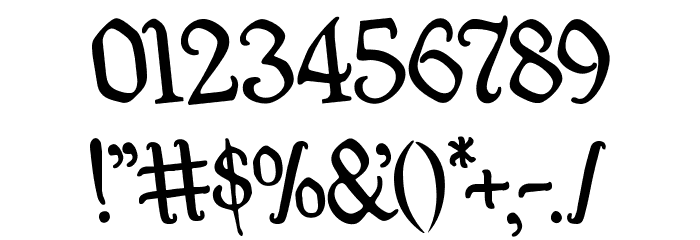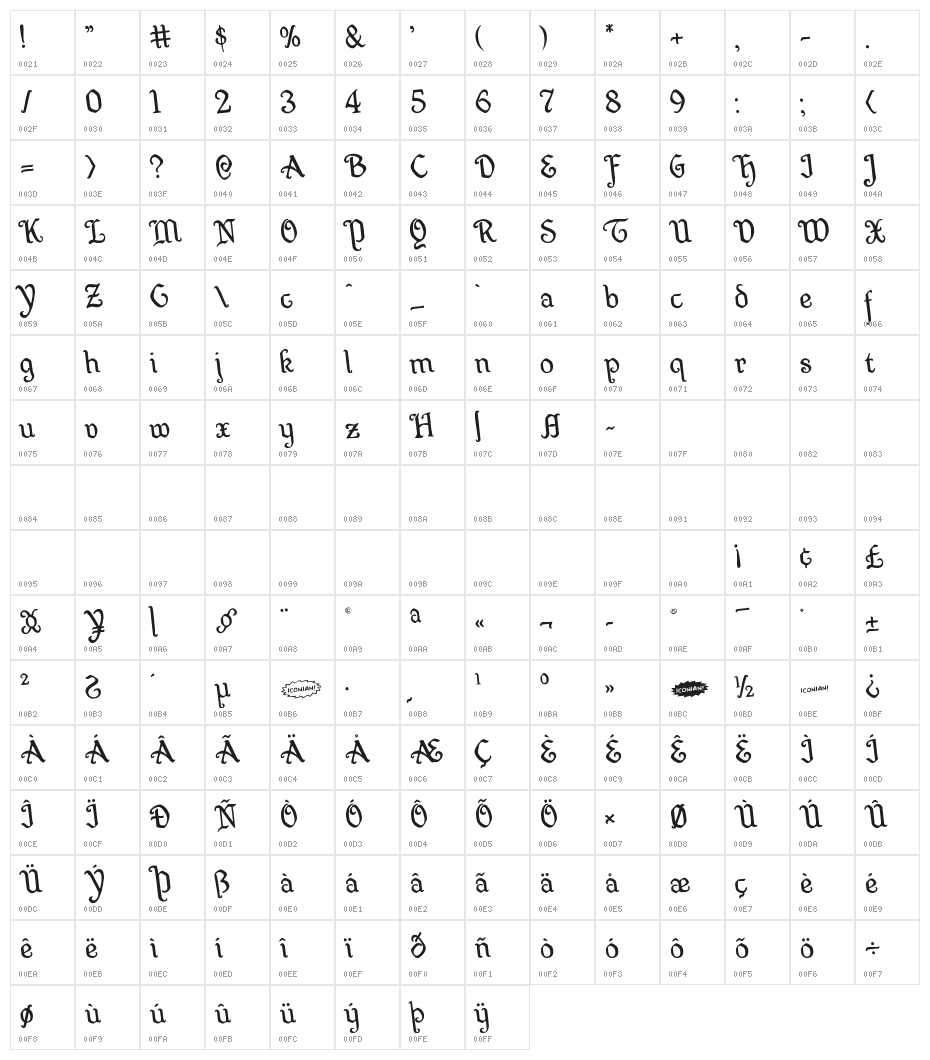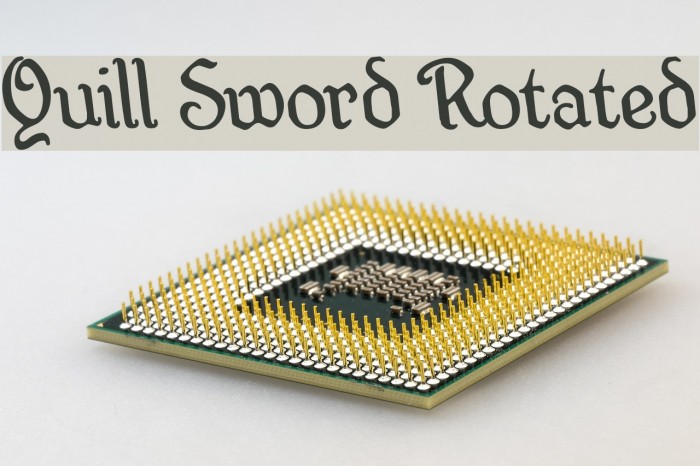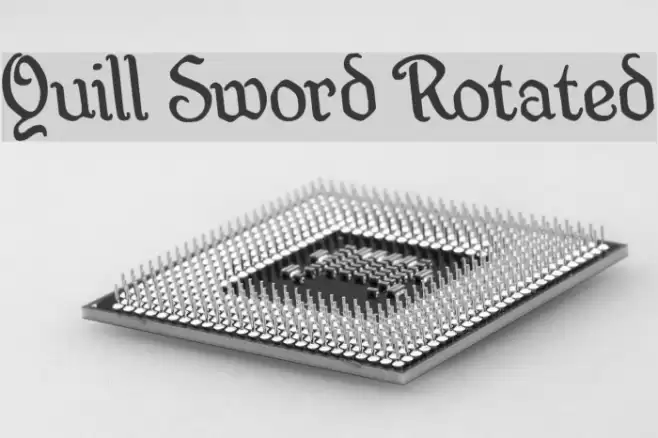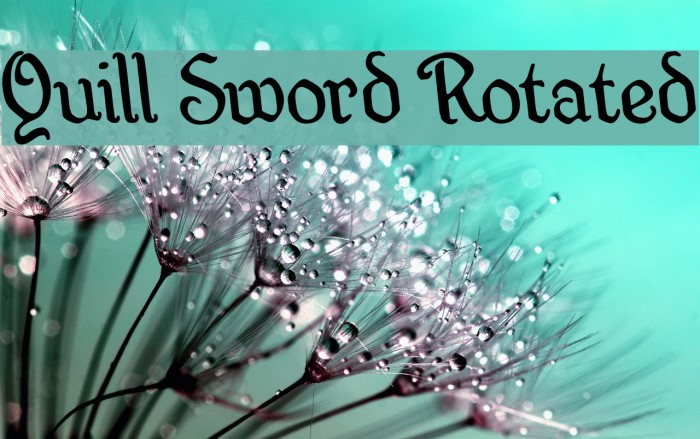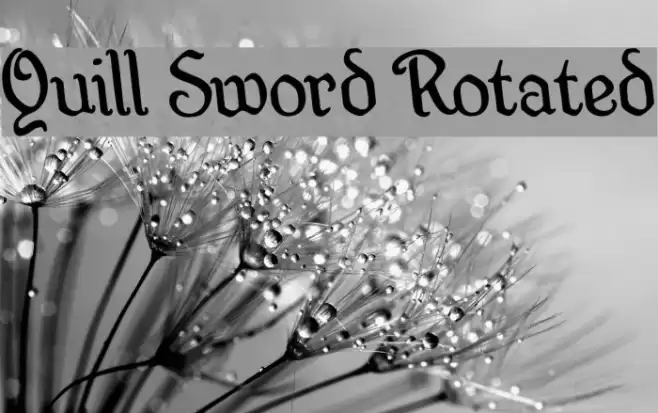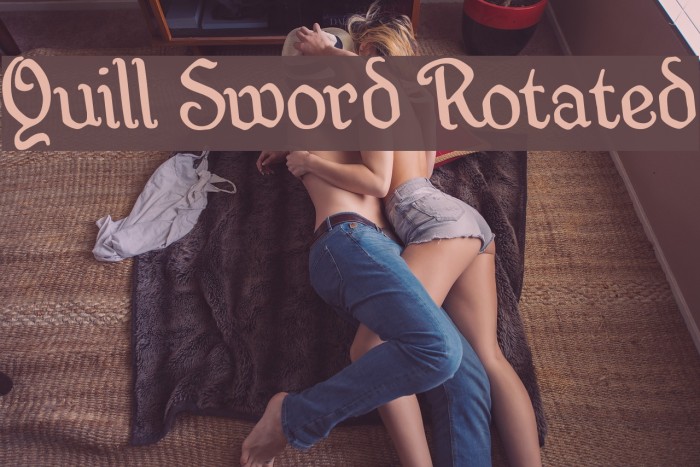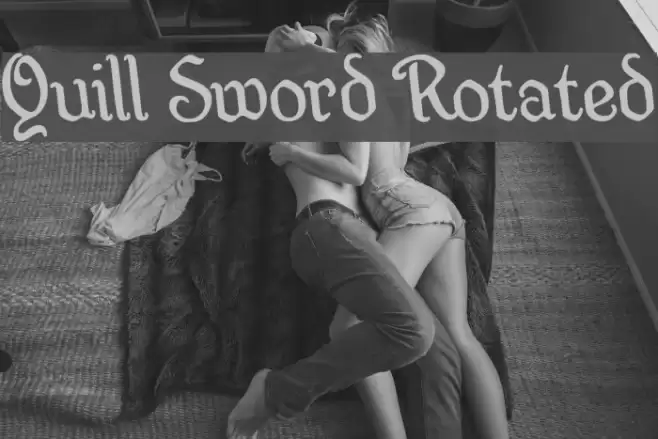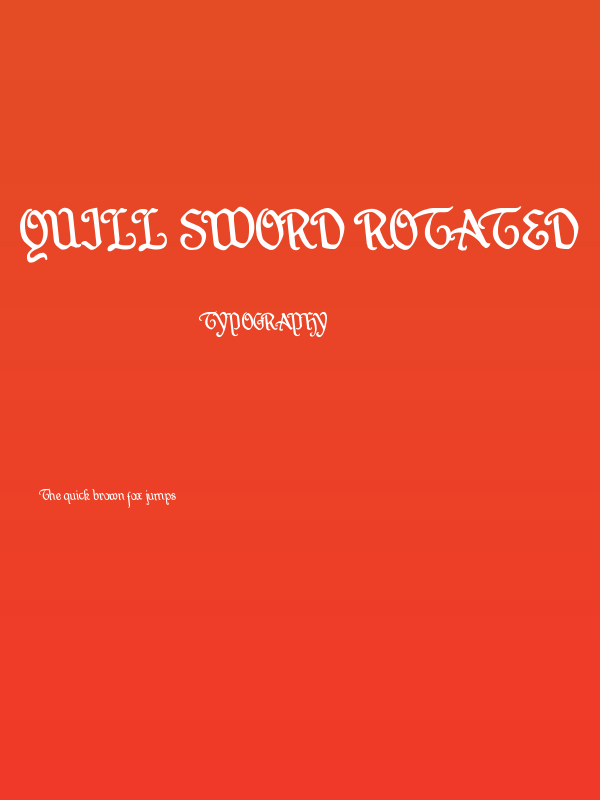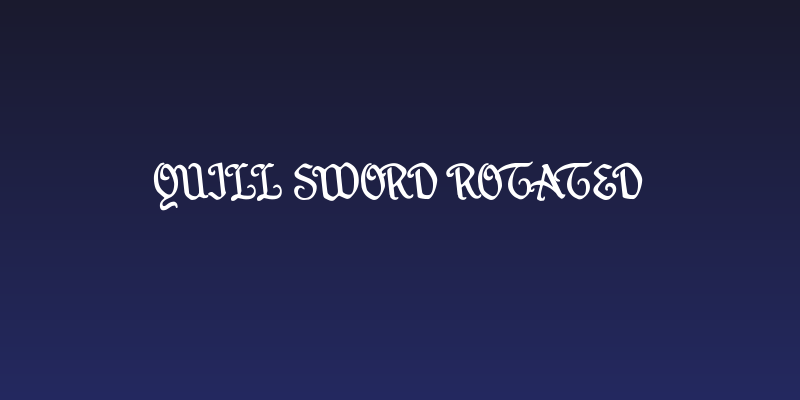
Quill Sword Rotated Font
Quill Sword Rotated Description
This font features a unique blend of medieval and calligraphic styles, characterized by its ornate and decorative letterforms. The uppercase letters exhibit intricate flourishes and sharp serifs, while the lowercase letters maintain a consistent flow with a slightly more subdued embellishment. The numerals are bold and distinct, complementing the overall aesthetic. Special characters are designed with the same attention to detail, ensuring a cohesive look across all glyphs. This font's artistic flair makes it suitable for projects that require a touch of elegance and historical charm.
| Proposed Projects | Ideal for invitations, historical-themed designs, book covers, and branding that requires a classic touch. |